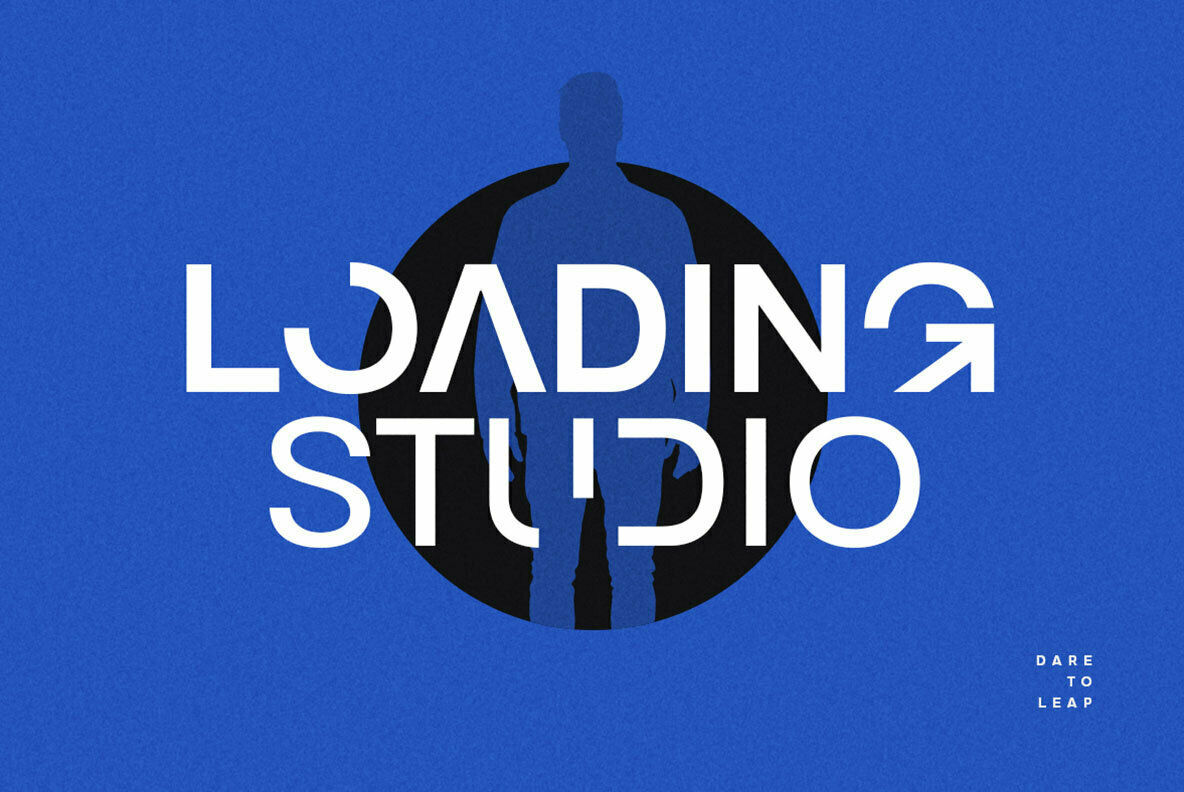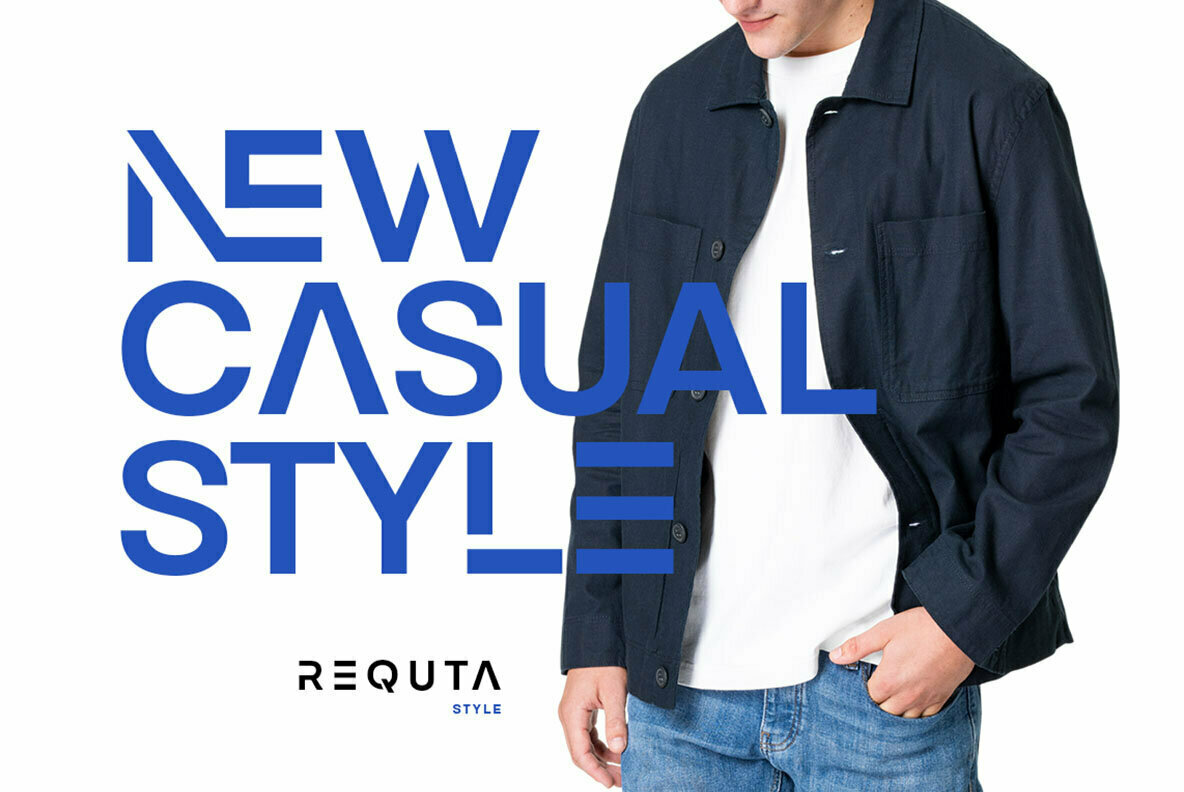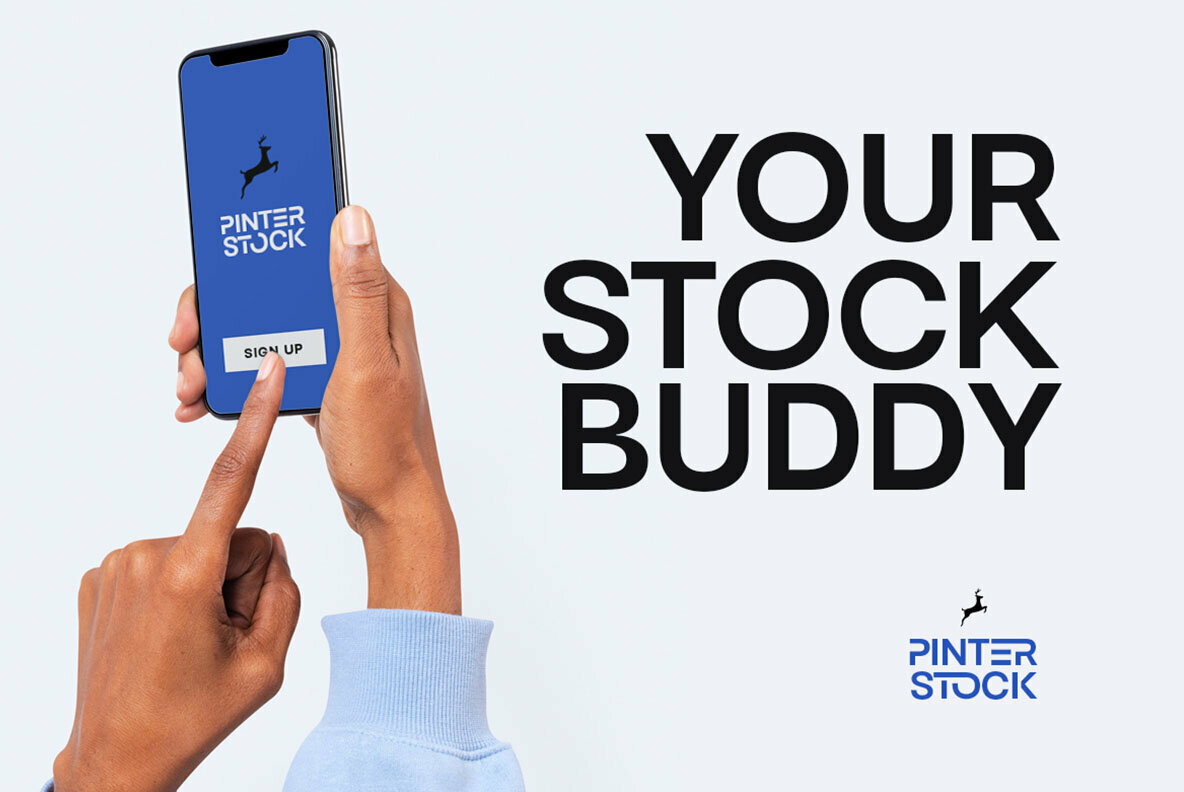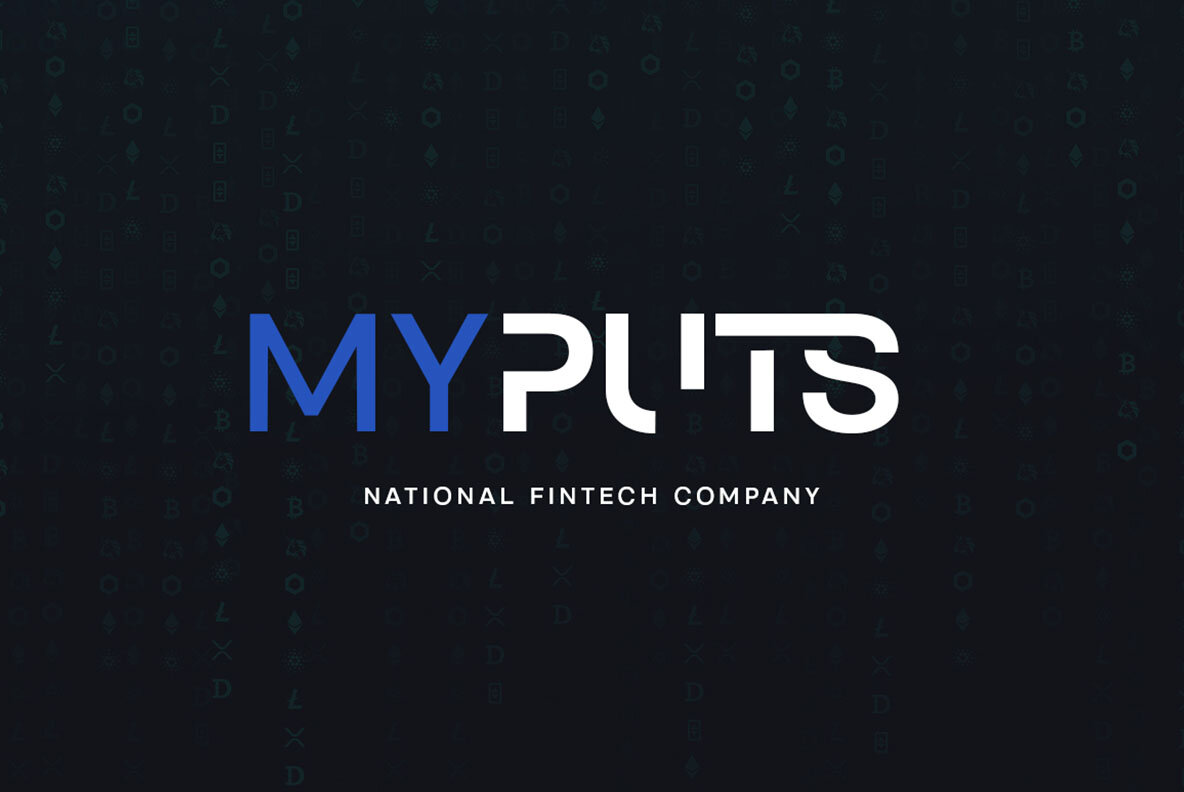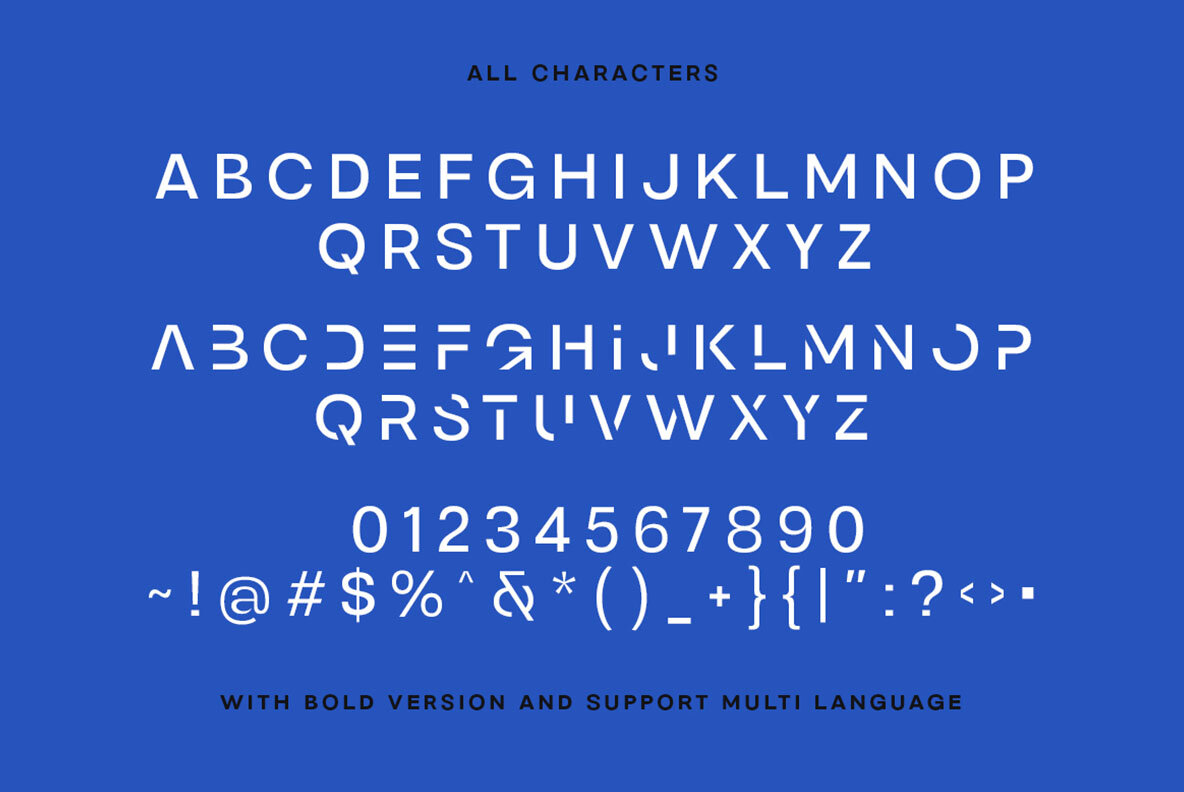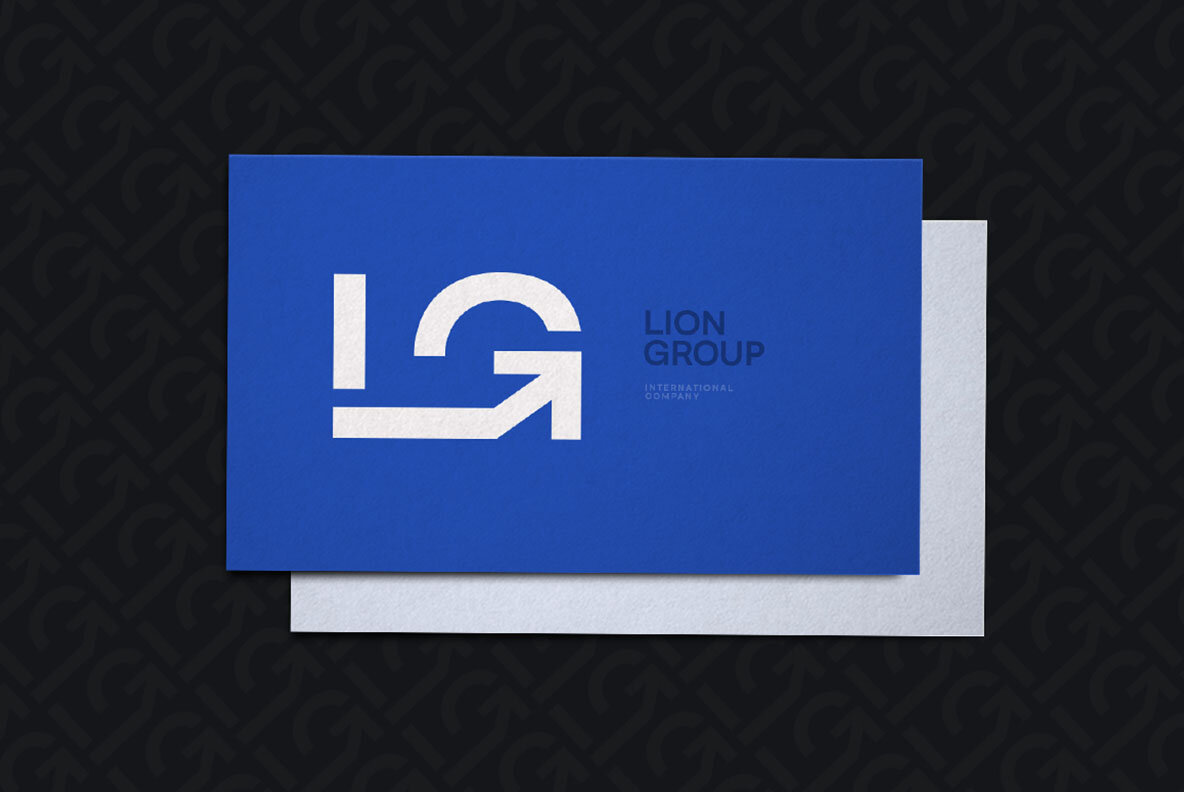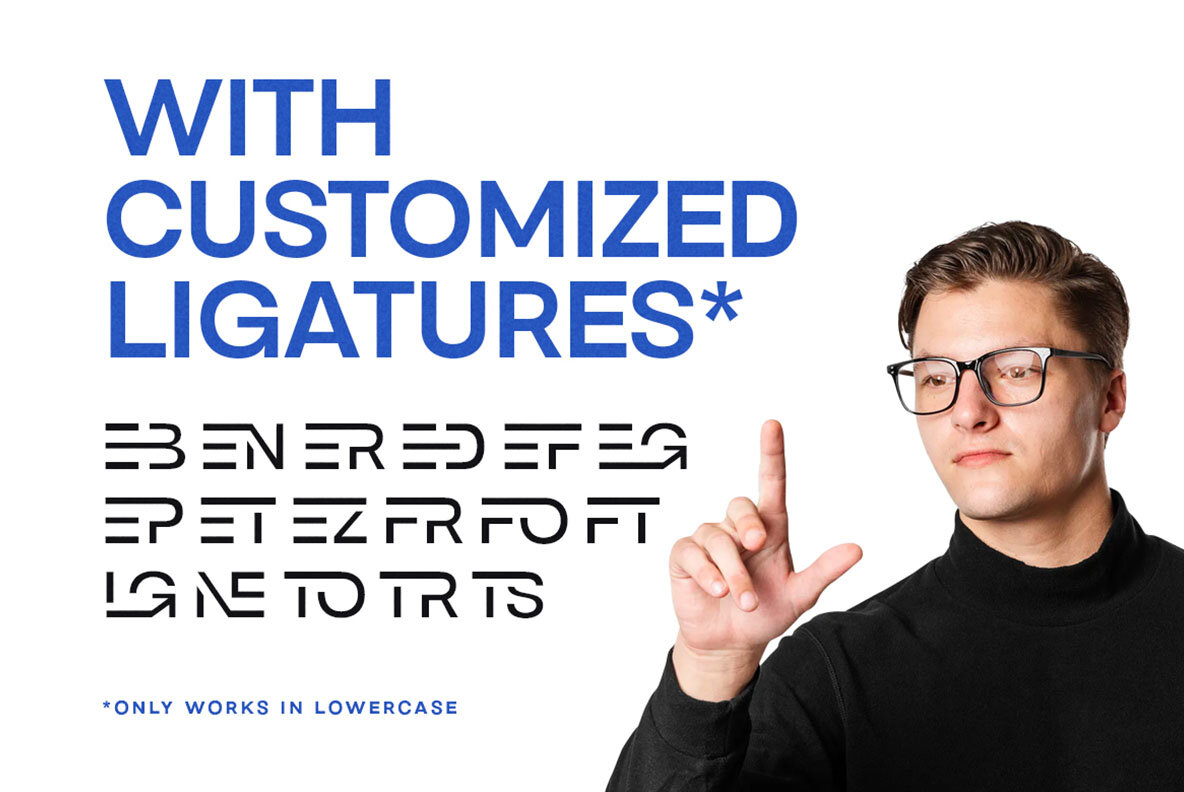
Logirent Font
Logirent is a unique typeface which is speciality made for a logotype. The customized ligatures is what makes this font unique. This type of font perfectly made to be applied especially in logo, headline, signage and the other various formal forms such as invitations, labels, logos, magazines, books, greeting / wedding cards, packaging, fashion, make up, stationery, novels, labels or any type of advertising purpose.
- Numbers and Punctuation
- Alternates / Swashes and Ligatures